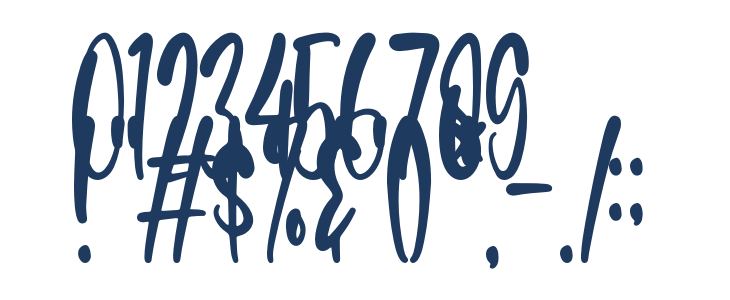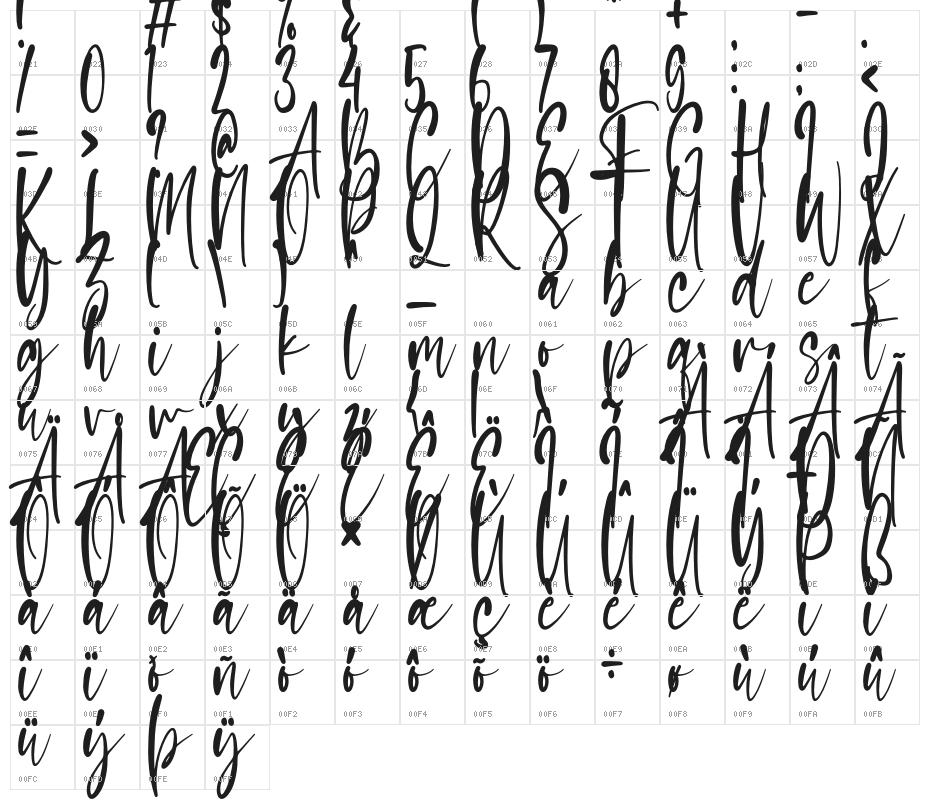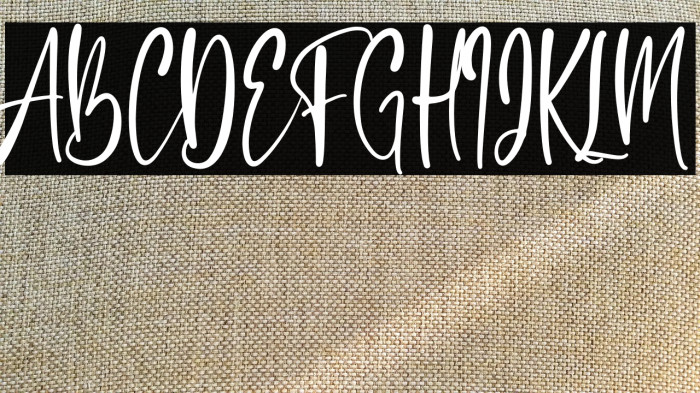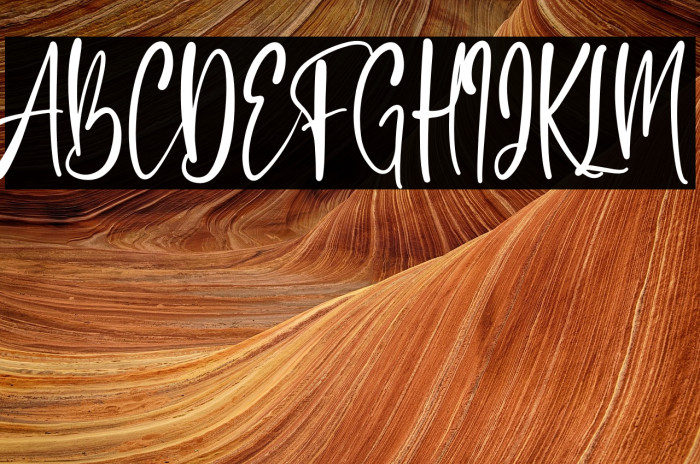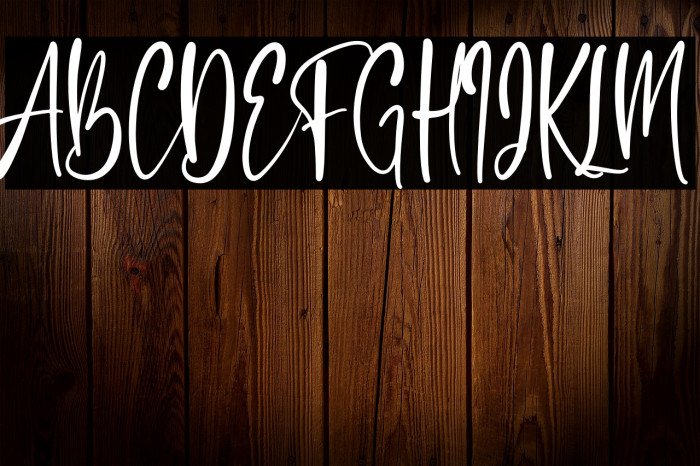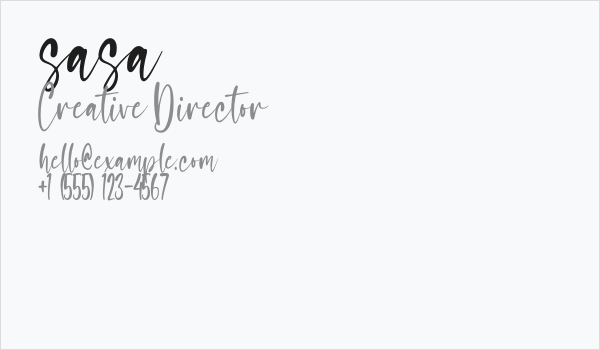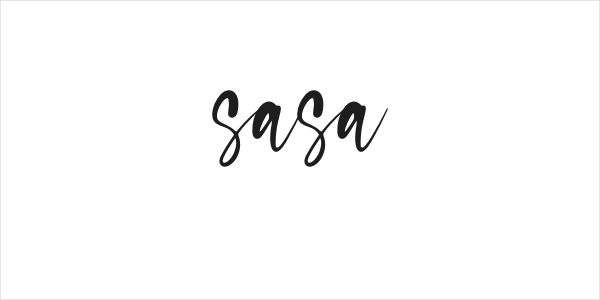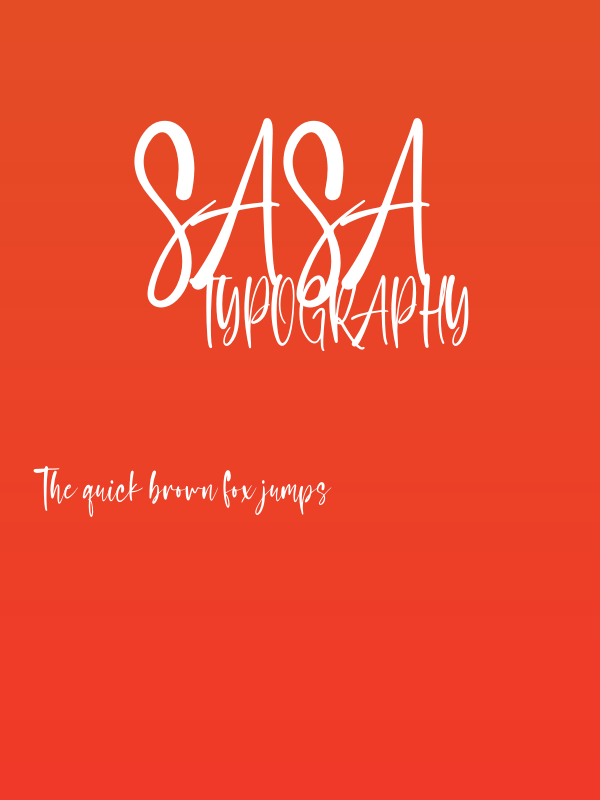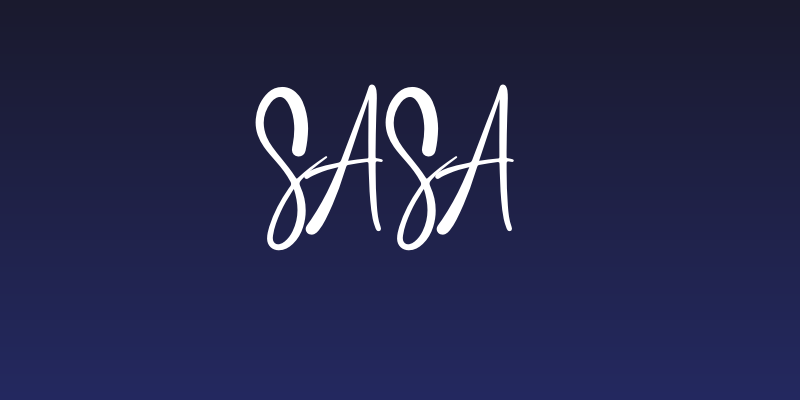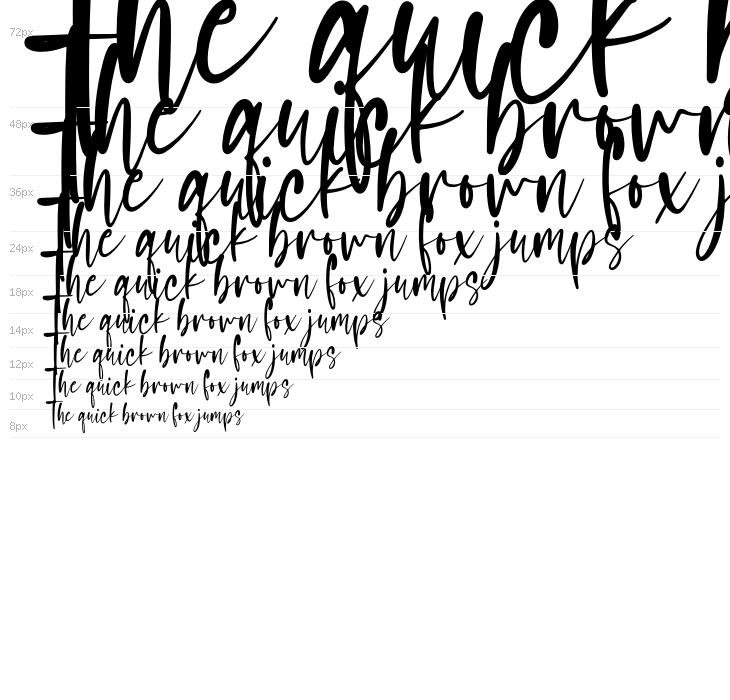
sasa Font
sasa Description
This font exhibits a lively and dynamic handwritten style, characterized by its fluid and cursive letterforms. The uppercase letters are tall and slender, with varying stroke widths that add a sense of movement and elegance. The lowercase letters maintain a consistent flow, with loops and curves that enhance its handwritten appeal. The numbers and special characters follow the same stylistic approach, ensuring a cohesive look across all glyphs. This font's playful yet sophisticated design makes it suitable for creative projects that require a personal touch.